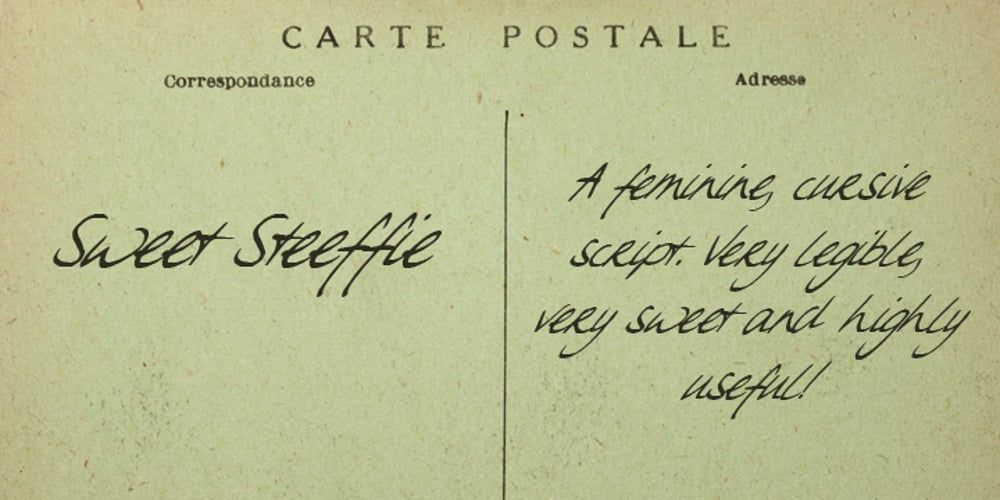
Sweet Steeffie Font Family was designed by David Kerkhoff, Stephanie Oei and published by Hanoded. Sweet Steeffie contains 1 styles and family package options. Sweet Steefie is a cursive, feminine script. It is highly legible, contains a full range of accents and is very useful for all your projects.